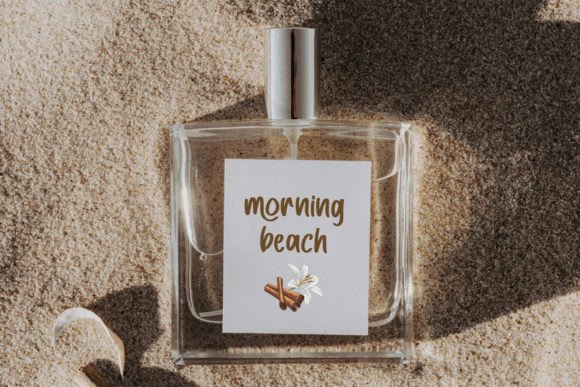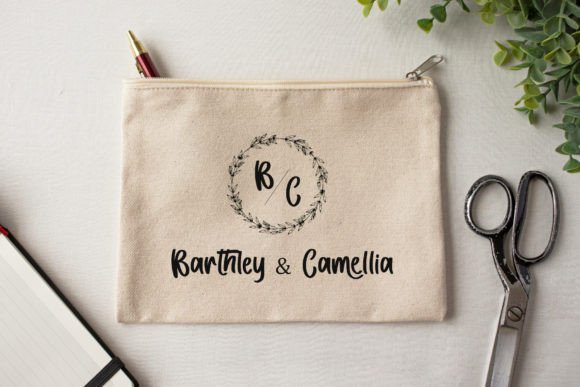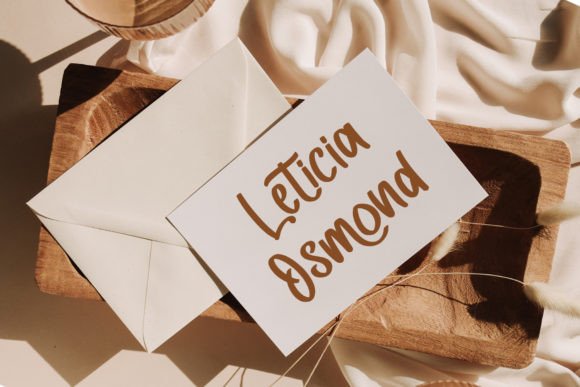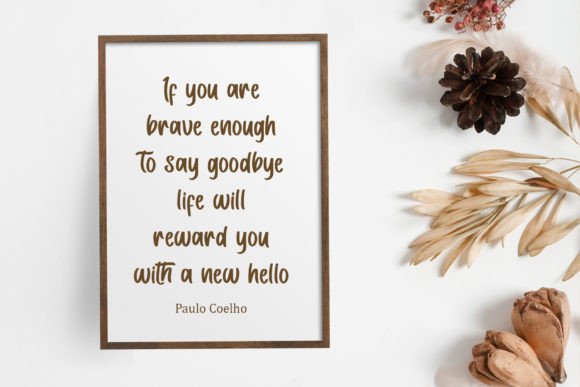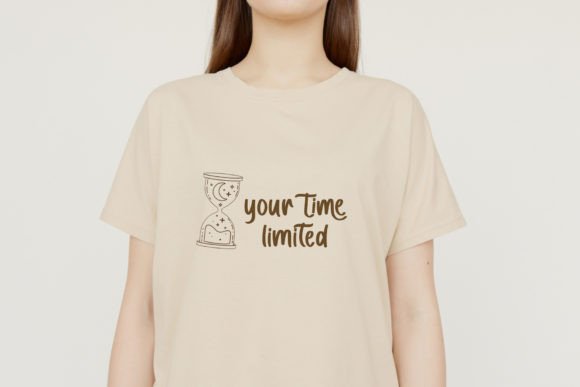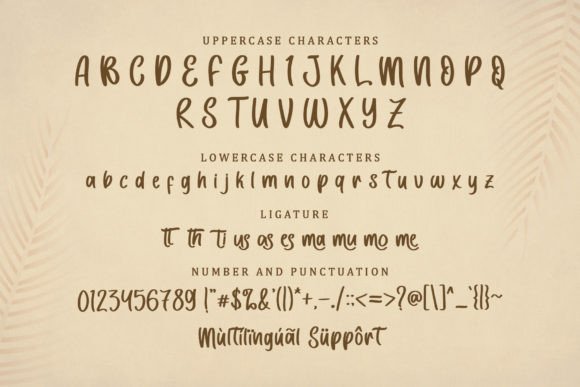
Introduction to Rustic Time Font
Rustic Time is a modern and casual script font that brings a retro feel to any design.
Its imperfect brush strokes and playful curves give off a carefree and effortless vibe Perfect for advertisements and designs that require a touch of nostalgia and whimsy.
Key Features of Rustic Time Font